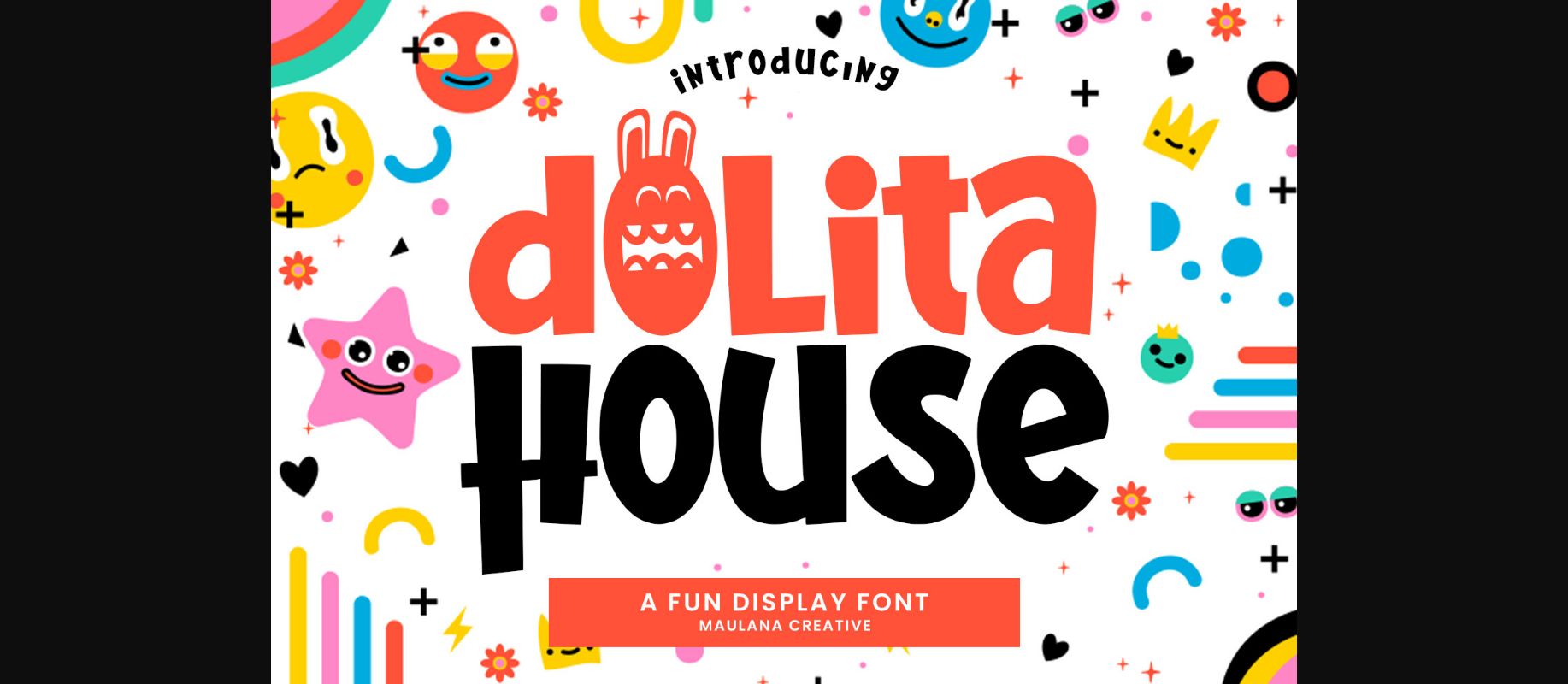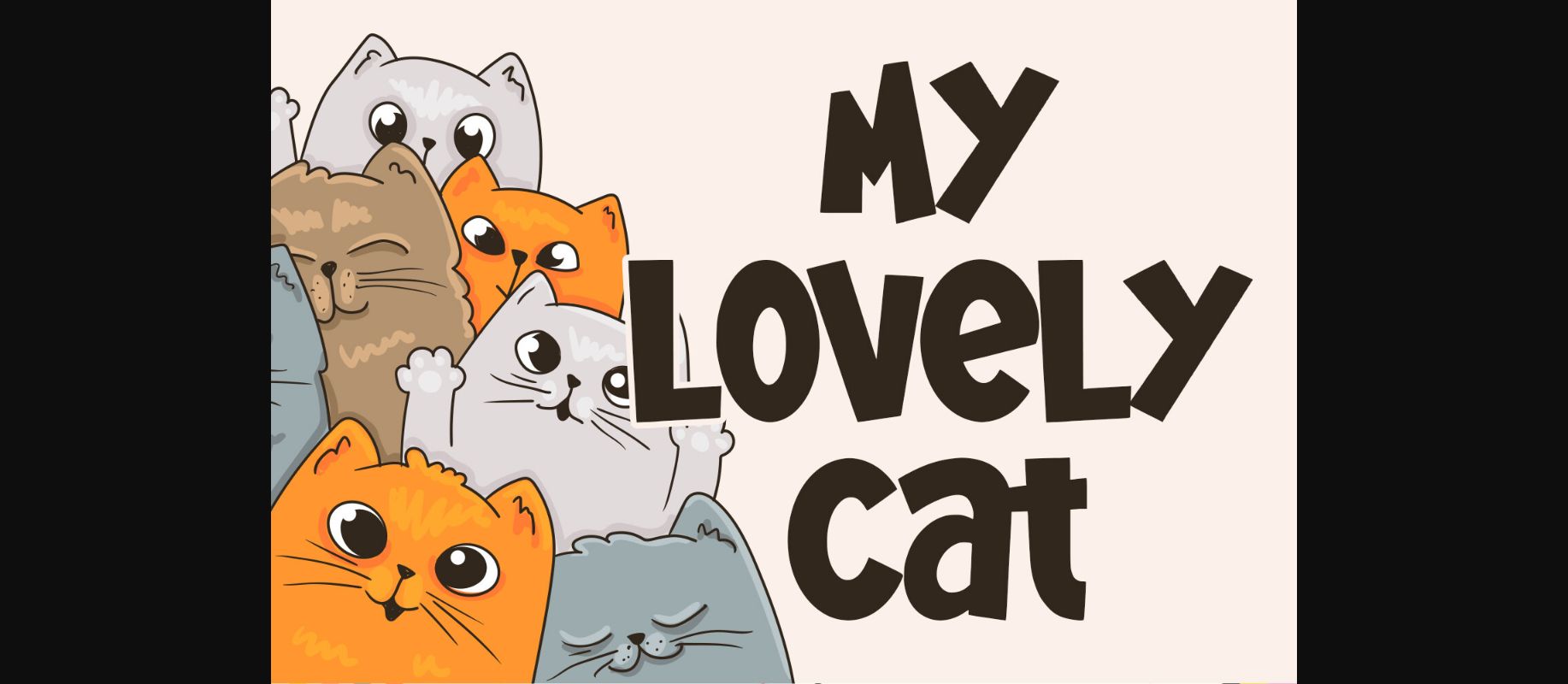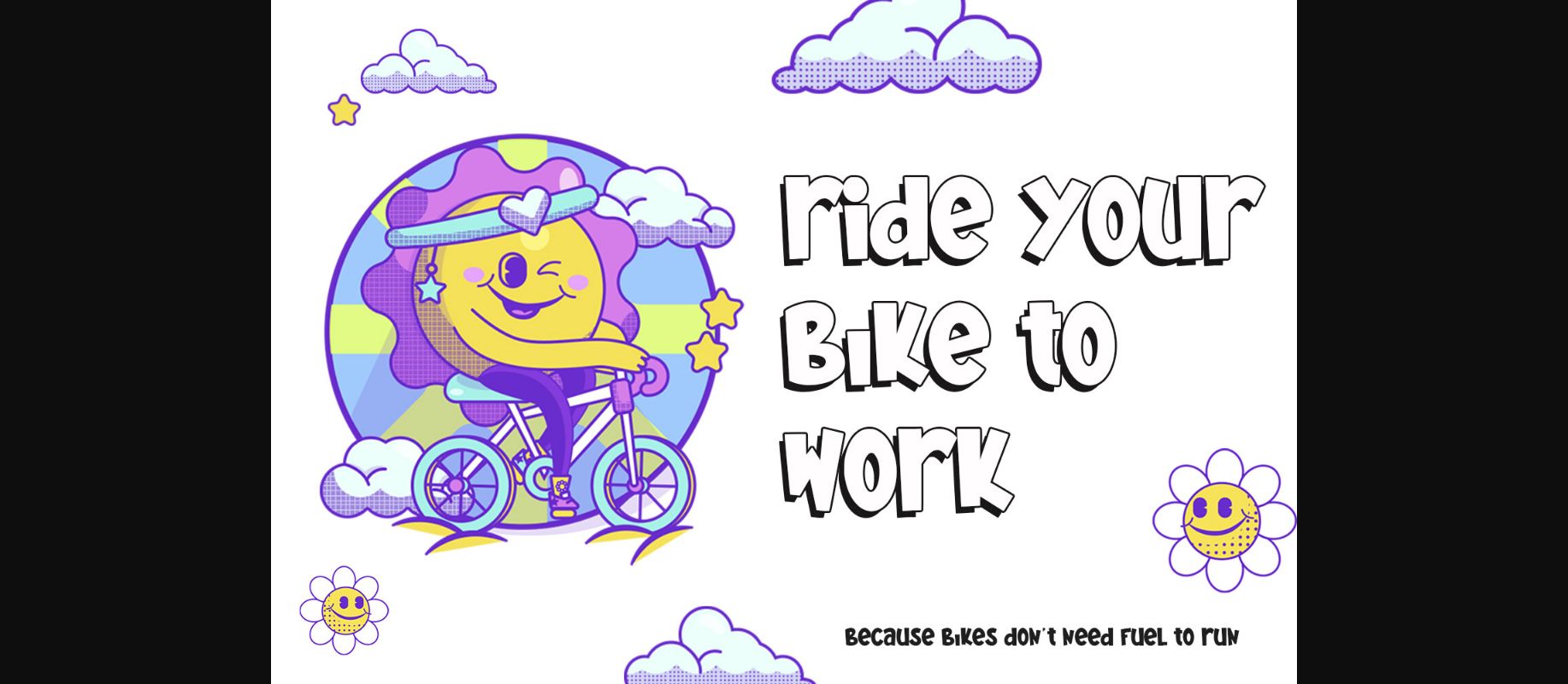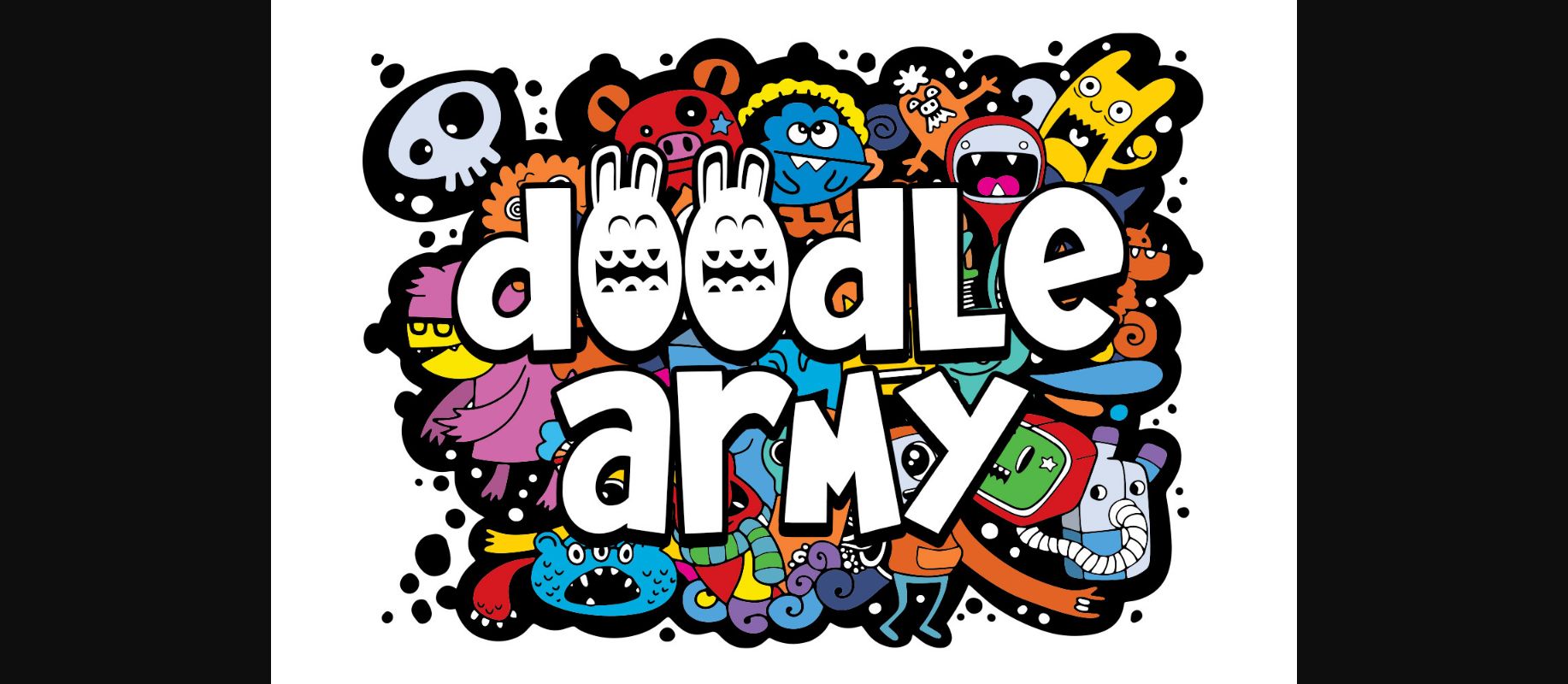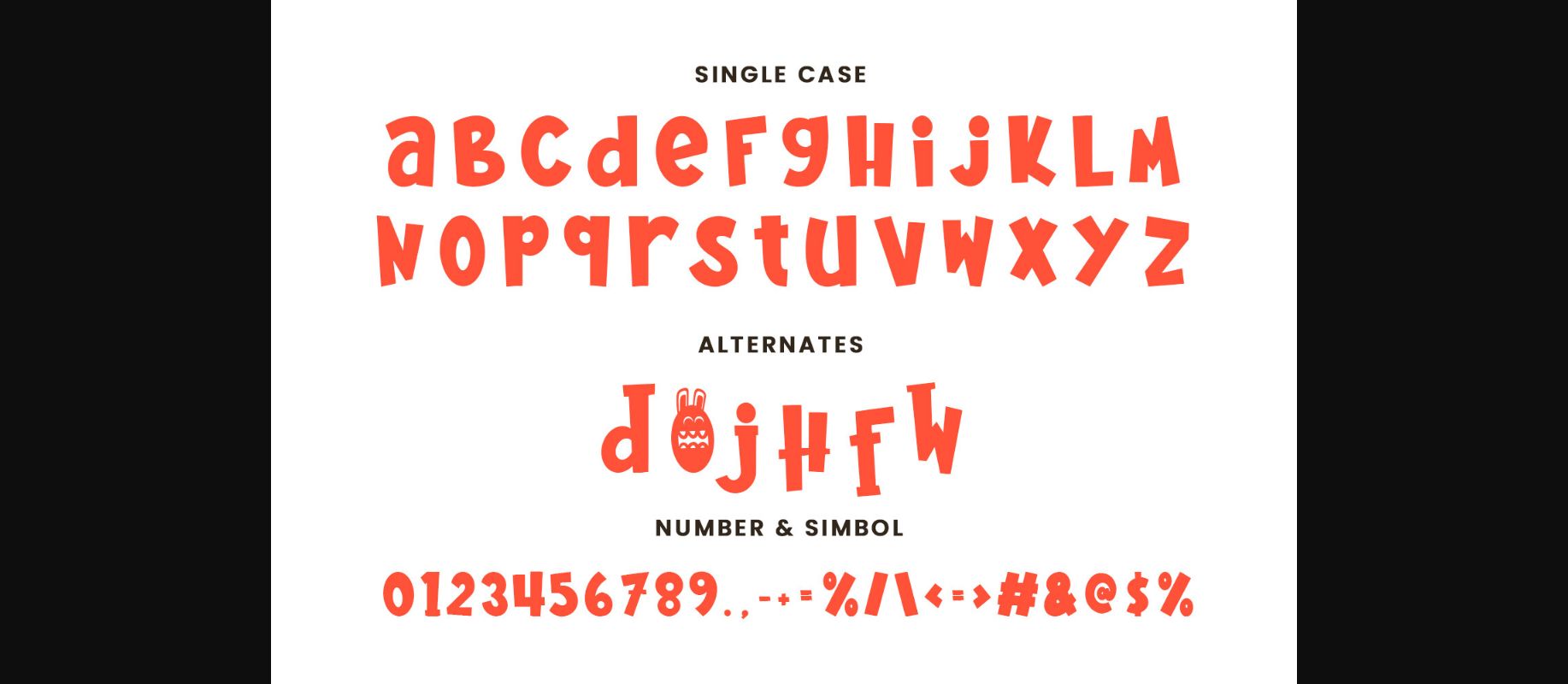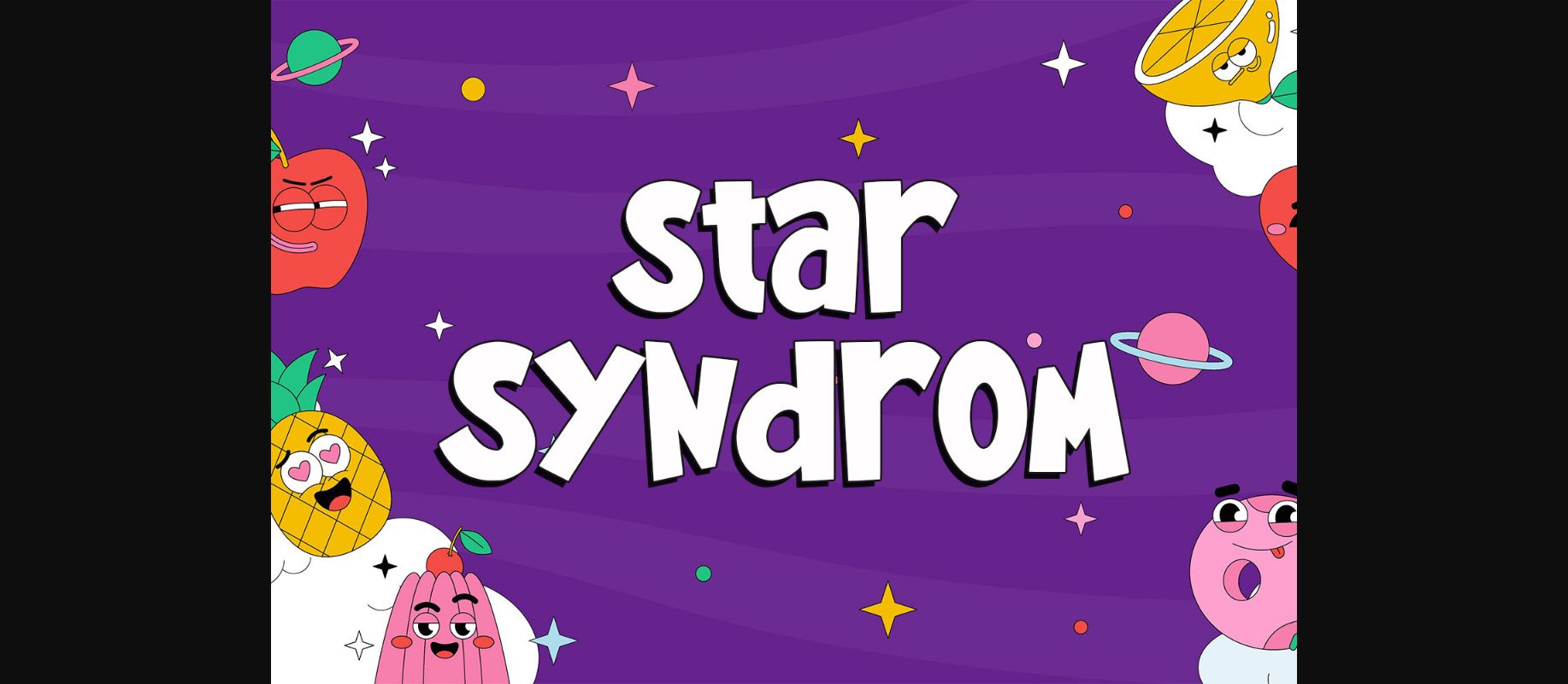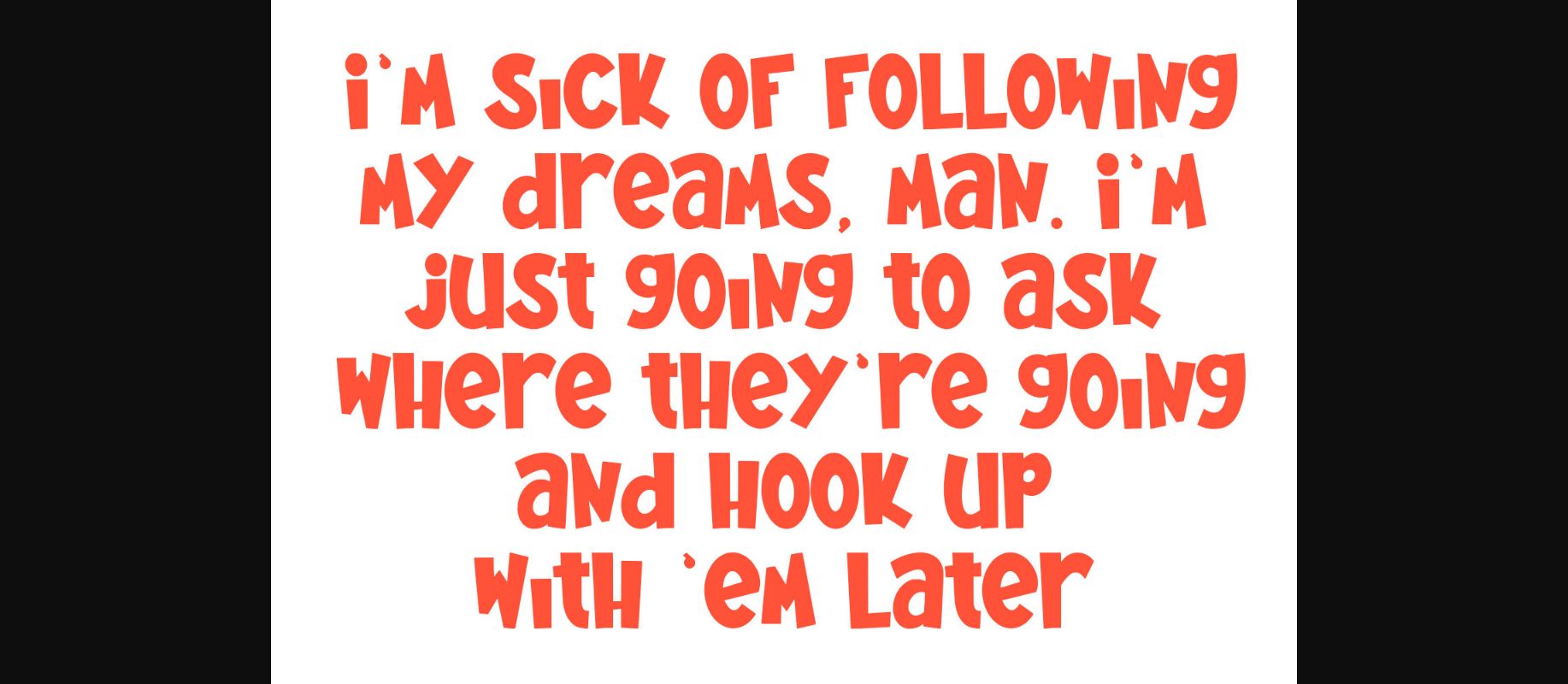
Dolita House Font
About Dolita House Font
Dolita House fun display font. Bold stroke, fun character with a bit of ligatures and alternates. To give you an extra creative work. Dolita House font support multilingual more than 100+ language. This font is good for logo design, Social media, Movie Titles, Books Titles, a short text even a long text letter and good for your secondary text font with script or serif. Make a stunning work with Dolita House font.